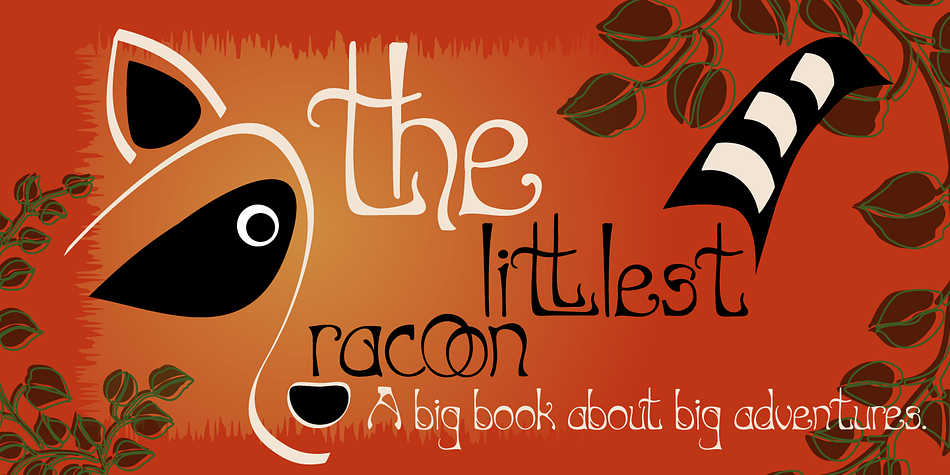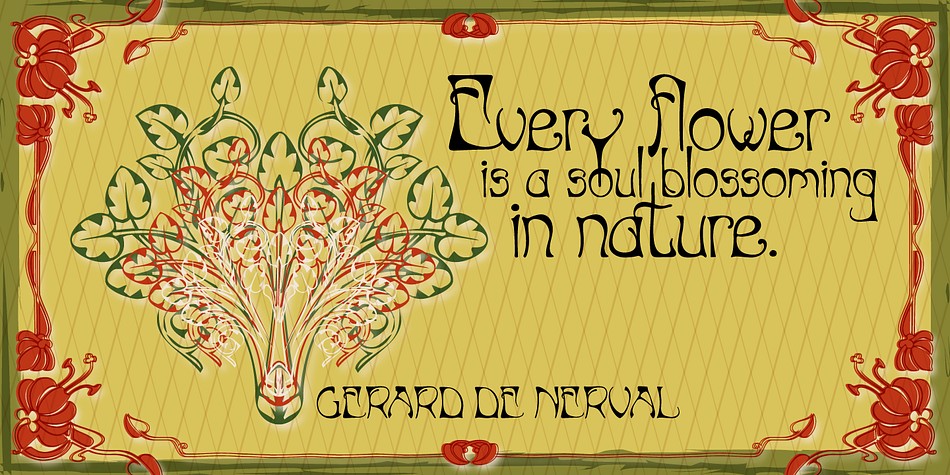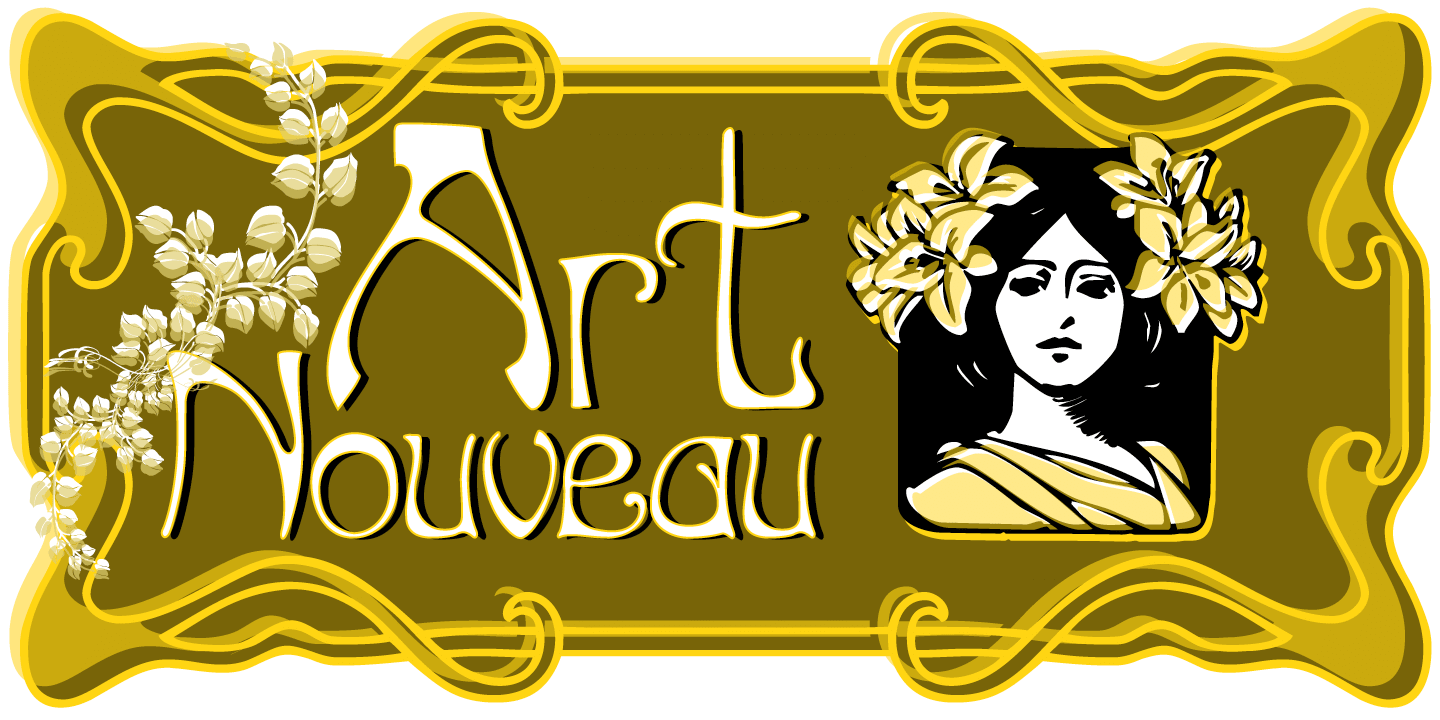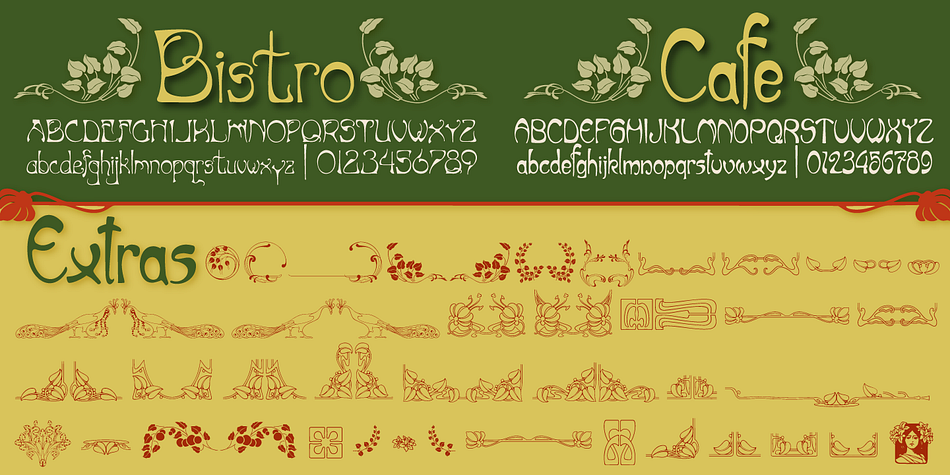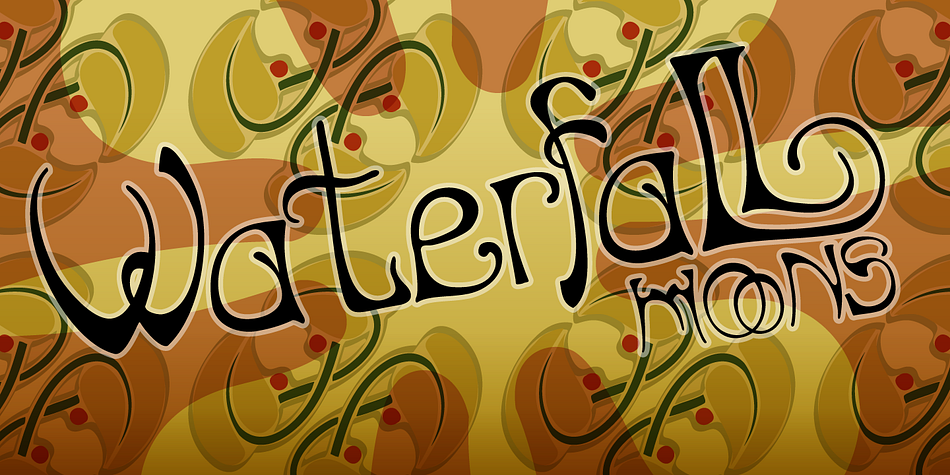
P22 Art Nouveau is a dingbat, retro and art nouveau font family. This typeface has three styles and was published by P22 Type Foundry.
The Art nouveau styles of the late 19th century exhibited a bold approach to organic lines and lavish decoration. This new style was spread throughout the world and helped usher in a new era that led to modern art and design.